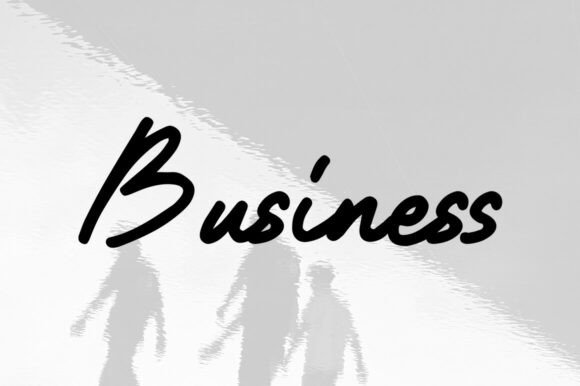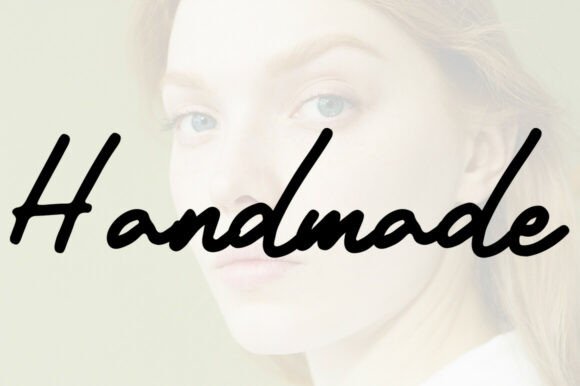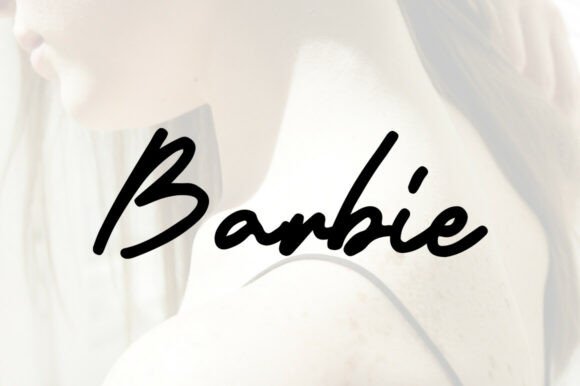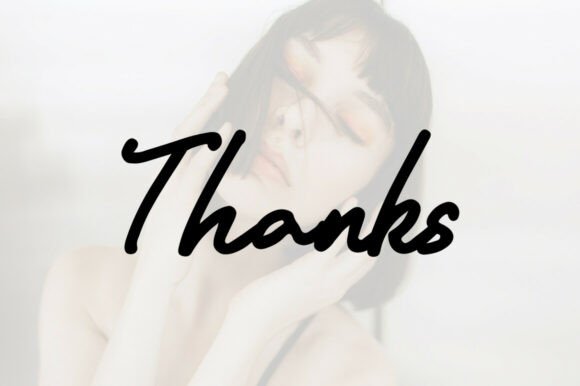
Introduction to Humbling Font
Humbling is a beautiful, well-balanced, and graceful script font.
It is defined by smooth curves and is perfect for fashion branding or editorial designs .
Humbling Font offers exceptional quality and versatility, making it a valuable addition to your design toolkit. Whether you’re creating for personal projects or commercial use, Humbling Font delivers professional results.